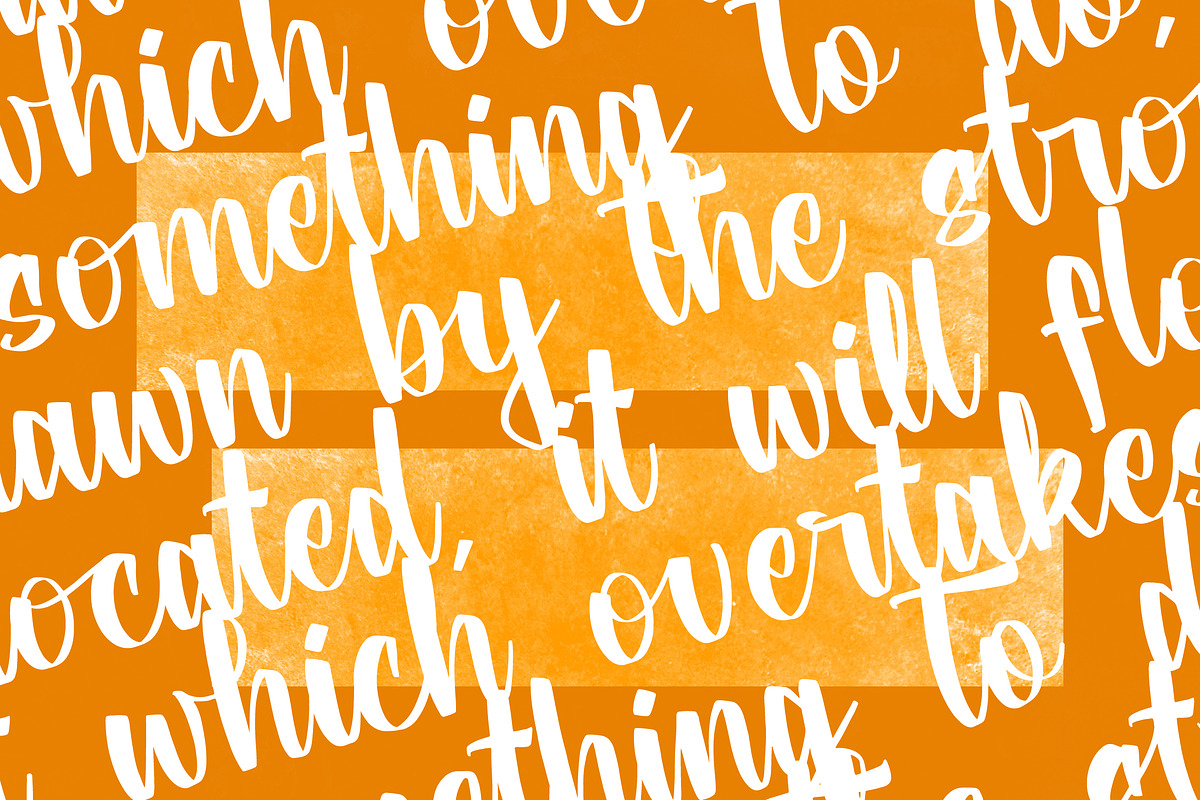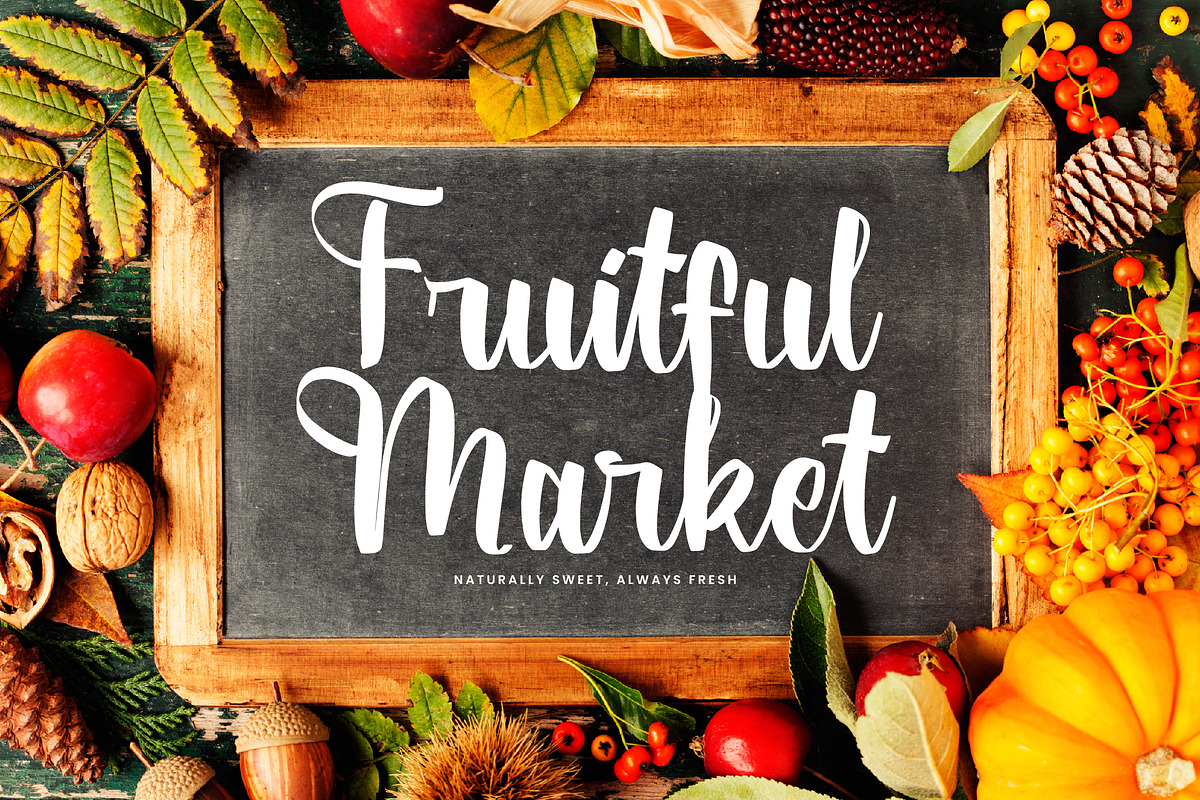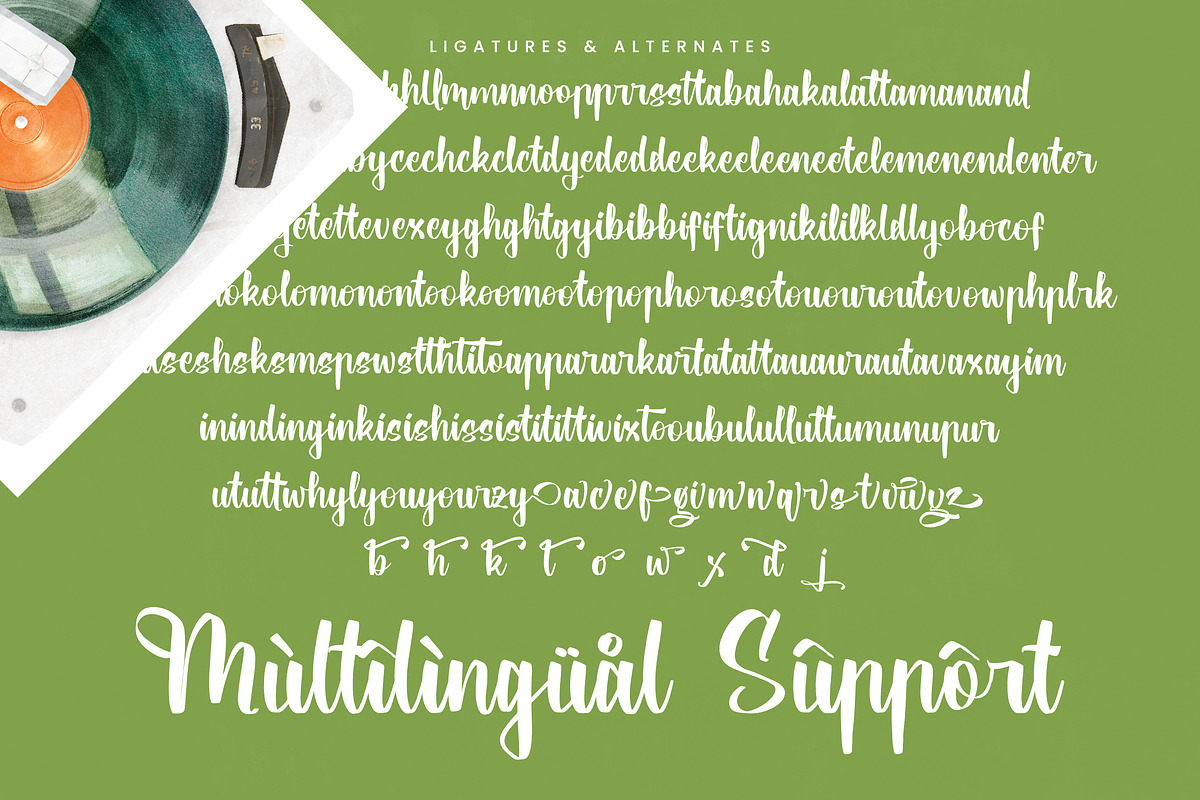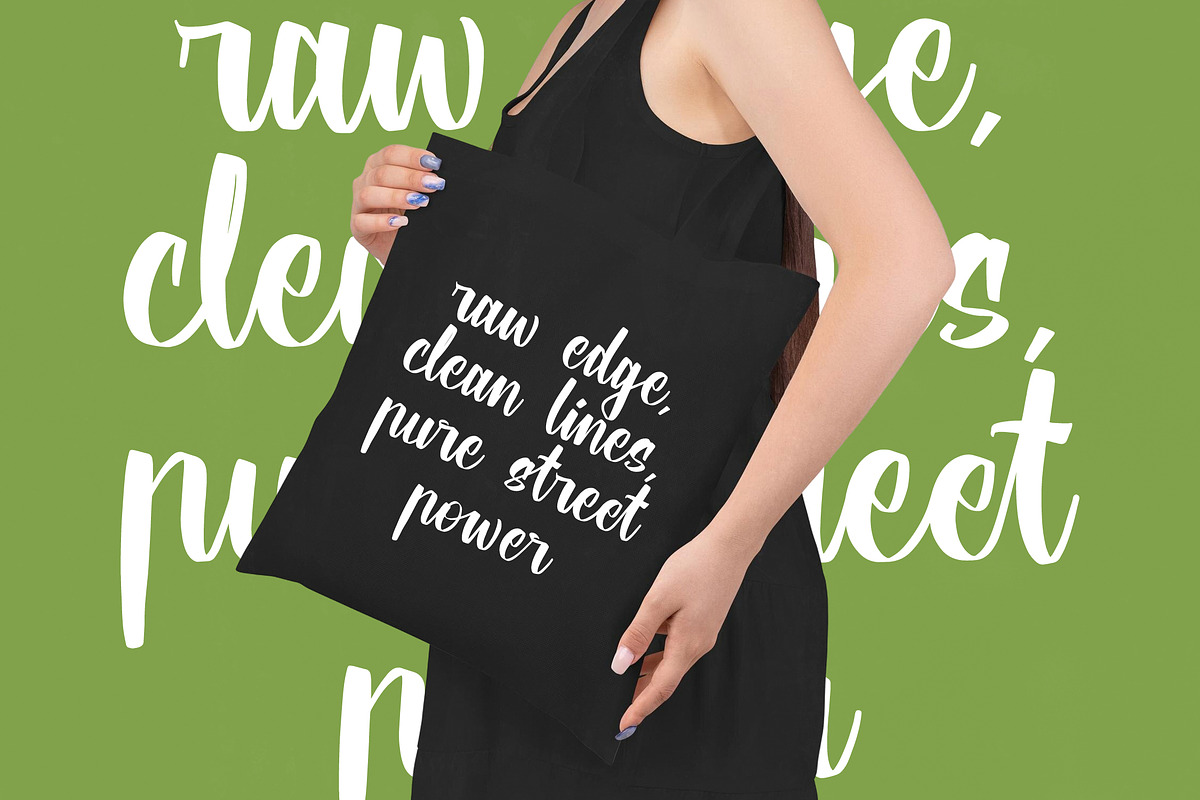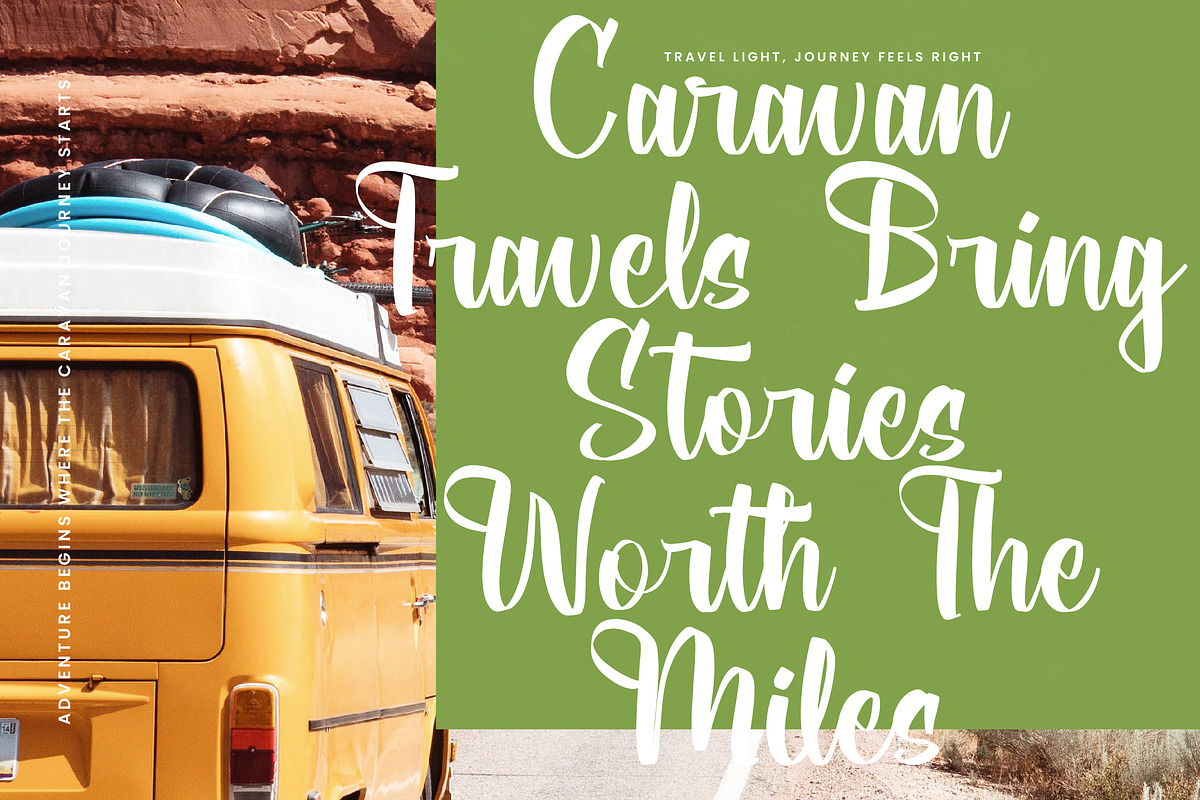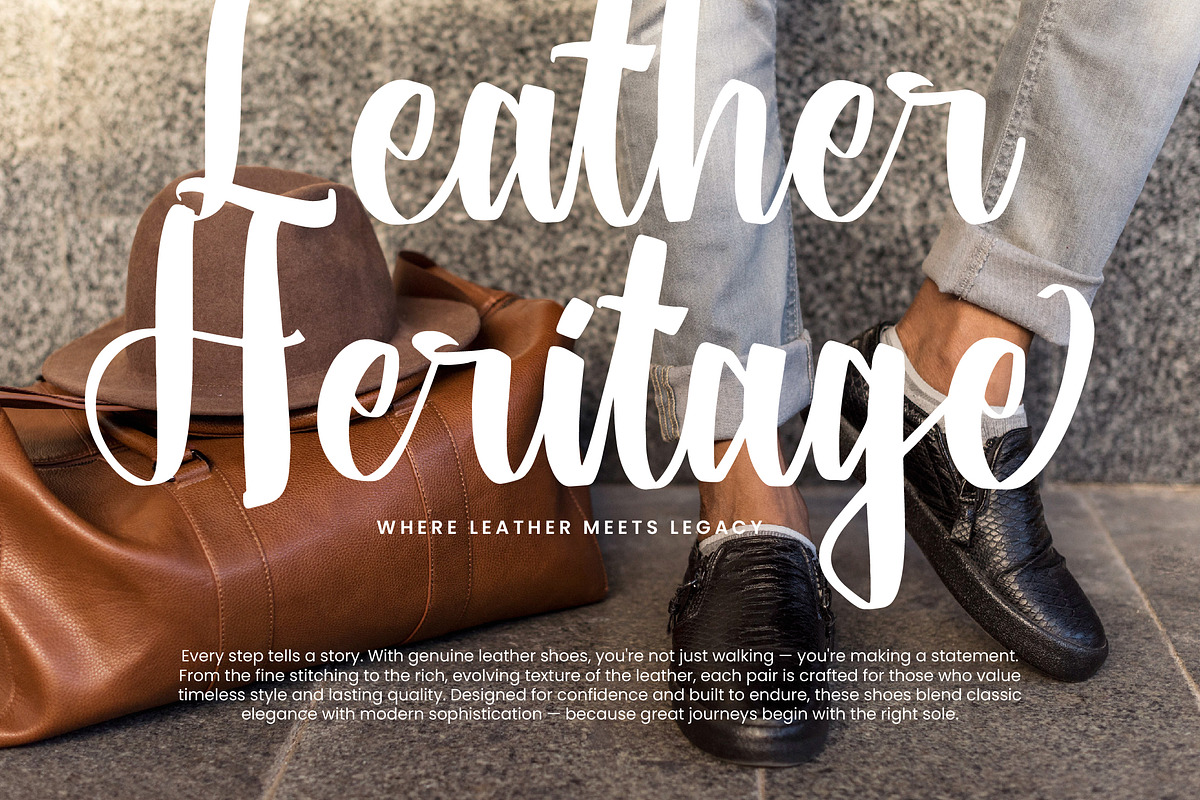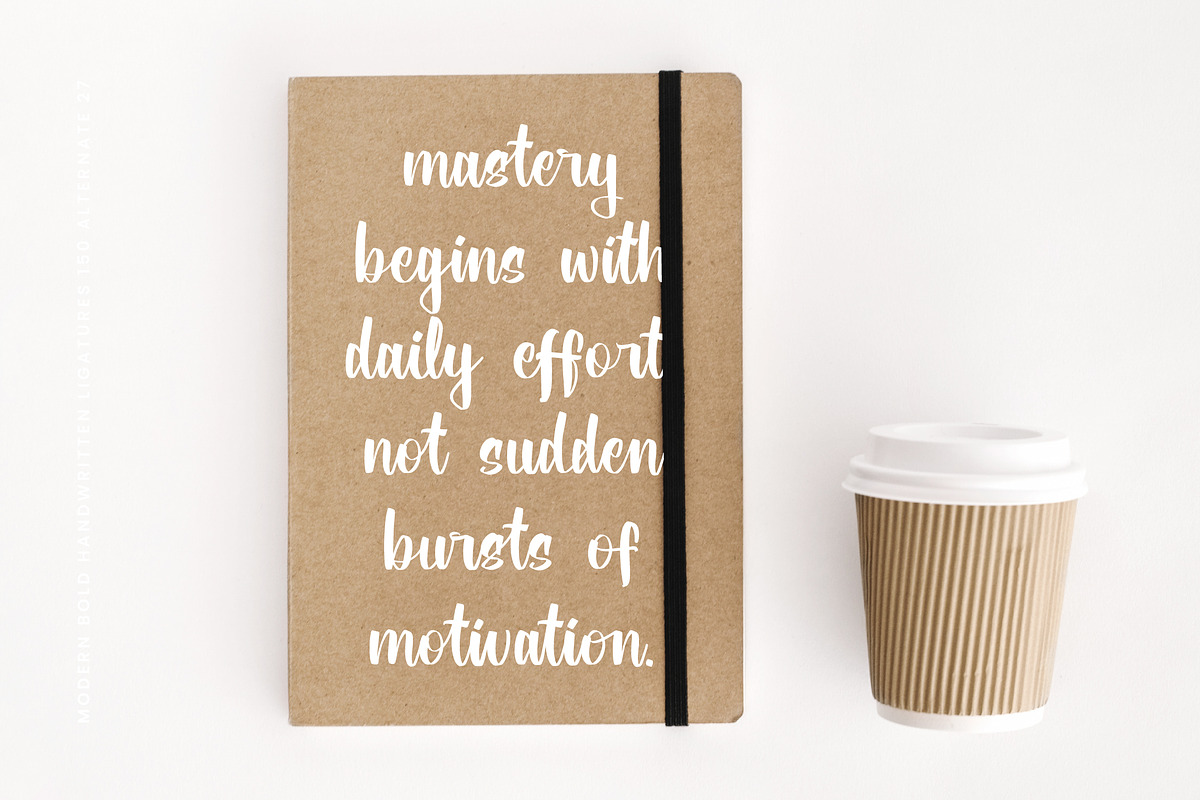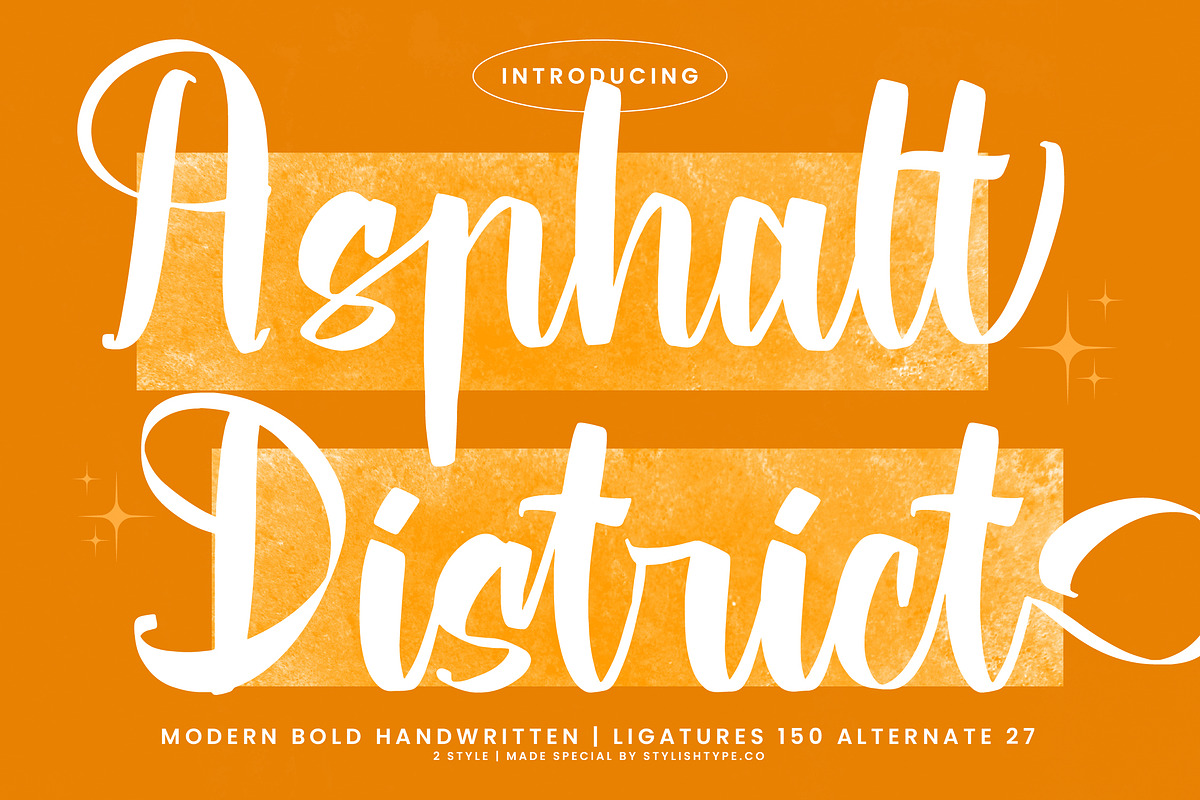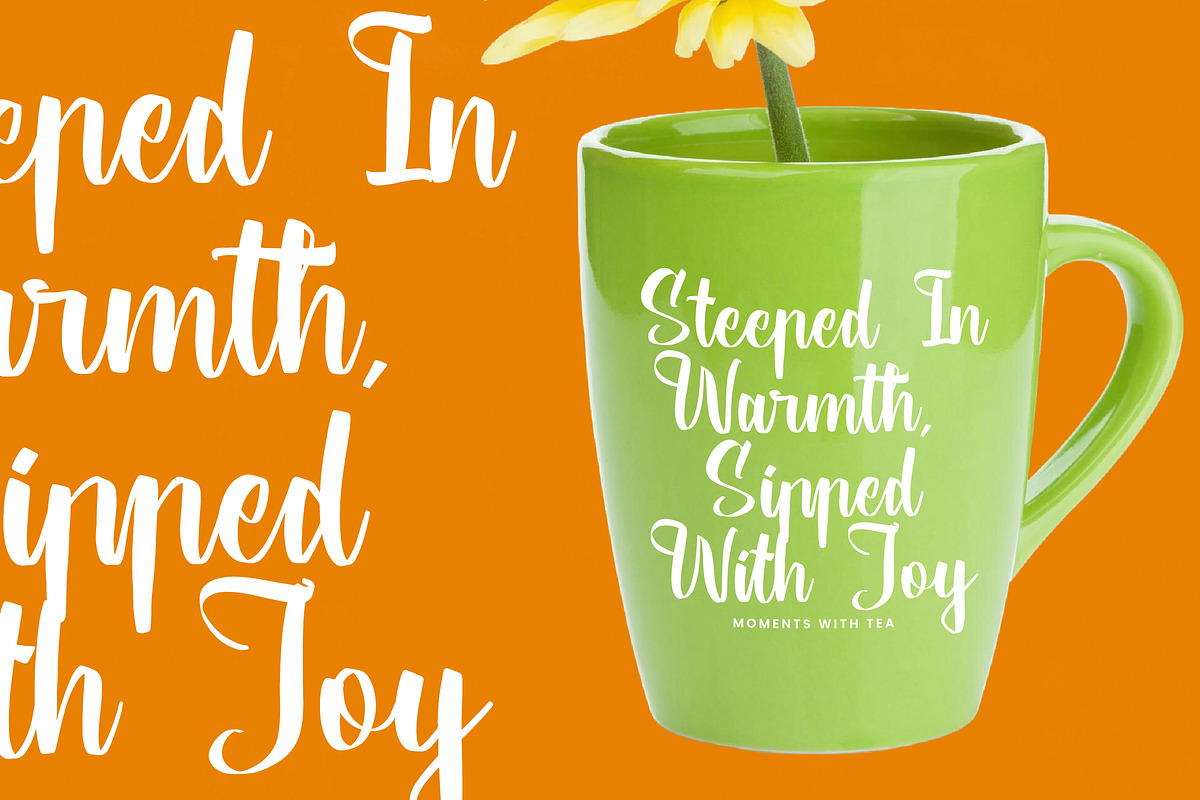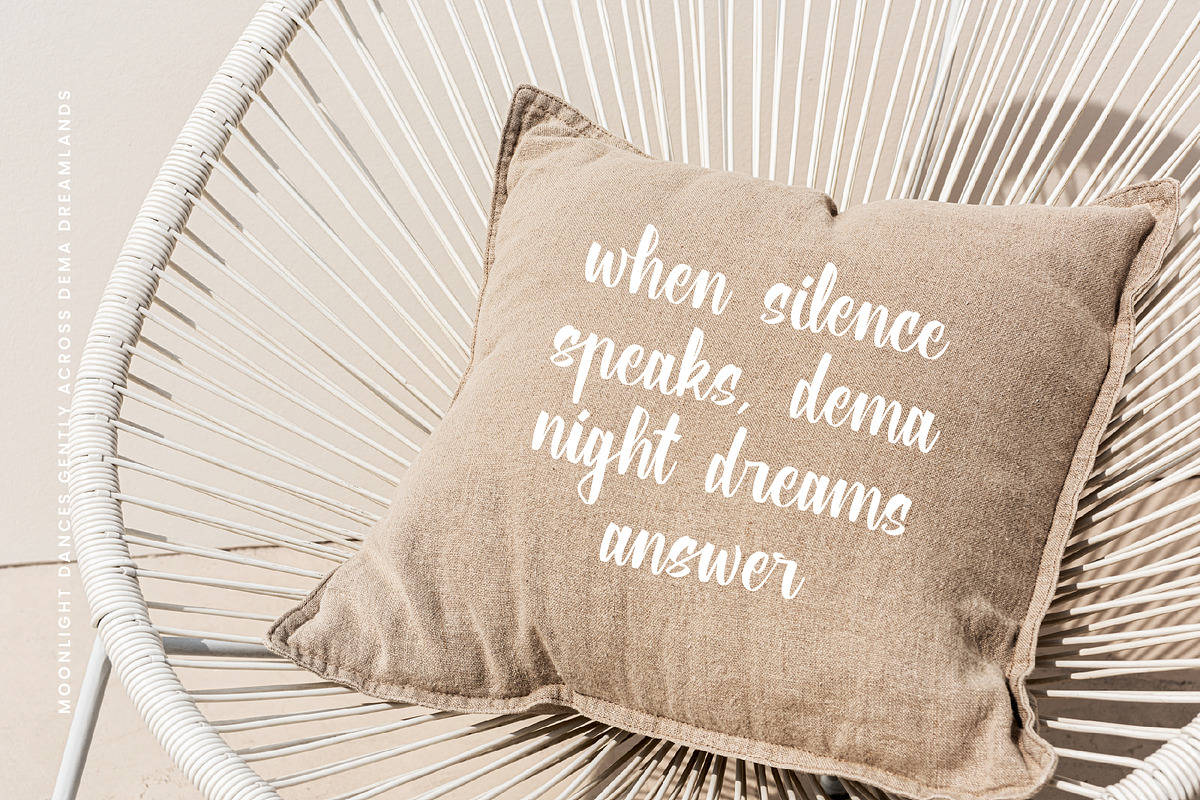
Asphalt District Modern Handwritten
Asphalt District - Modern Bold Handwritten , from Stylishtype.Co , Suitable for any projects such as: logos, branding projects, homeware designs, product packaging, mugs, quotes, posters, shopping bags, t-shirts, book covers, name card, invitation cards, greeting cards, label, photography, watermark, special events, and all your other luxury and beautiful projects that need a Luxury Script taste.
- 150 Ligature 27 Alternates & Swashes